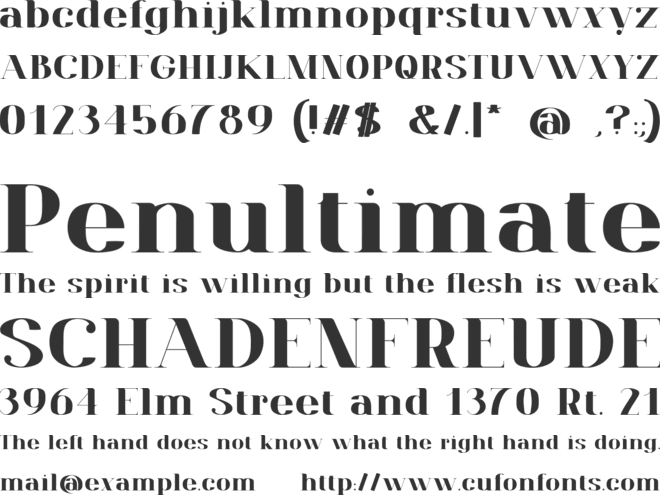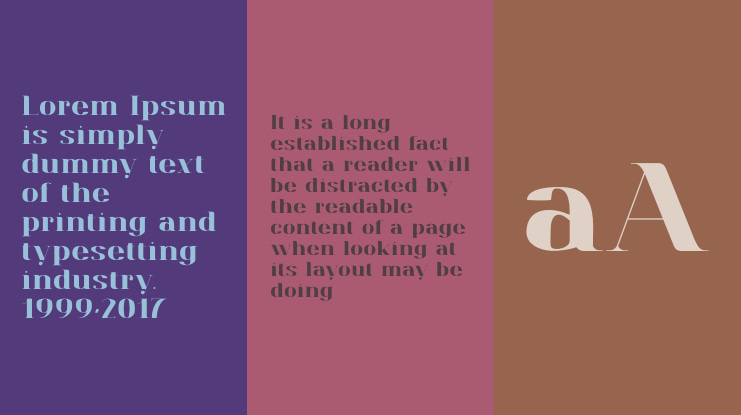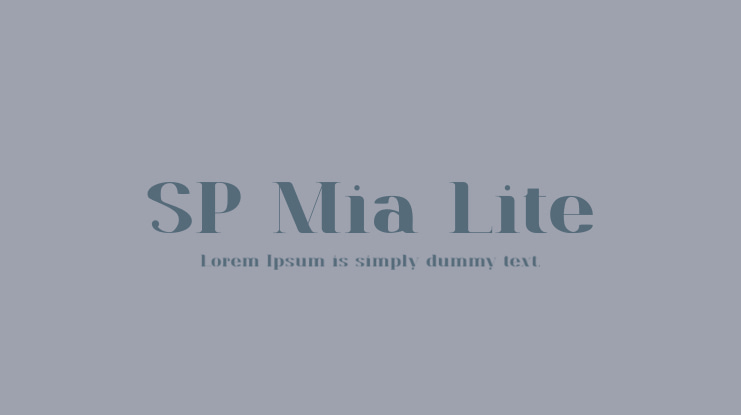
SP Mia Lite Font Family
Discover the alluring elegance of SP Mia, a refined serif font developed by Studio Pulp in 2024. Inspired by the intriguing character Mia Wallace from the film classic "Pulp Fiction" (1994), this serif font comes in 5 weights with both regular and italic variants, offering a beautiful interplay of lines for a graphic masterpiece.